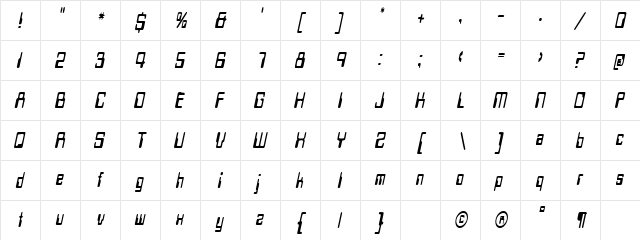
TechSchoolCondensed Oblique Font Preview
Design Context for TechSchoolCondensed Typeface
TechSchoolCondensed has a distinctly futuristic character, with geometric precision and clean angles that feel at home in technology, gaming, and sci-fi contexts. The slanted form adds forward momentum and visual energy. The condensed width makes it efficient for tight spaces without sacrificing legibility.
Pro Tip: Use TechSchoolCondensed in combination with a neutral sans for body text. Let it define the brand voice in headlines while keeping reading comfortable elsewhere.